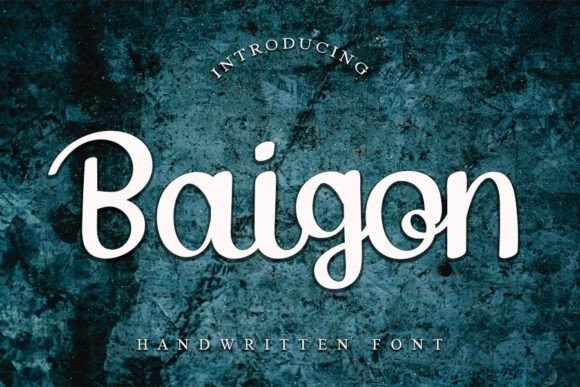
Baigon Font: Elevate Your Creative Projects with a Friendly Handwritten Style
In the world of typography, fonts play a crucial role in conveying the tone and personality of a brand or creative project. Among the numerous fonts available, Baigon Font stands out as a friendly handwritten font that has been carefully designed to become a true favorite. With its classy calligraphic influences and contemporary feel, Baigon Font is an excellent choice for those looking to add a touch of elegance and freshness to their projects.
What is Baigon Font?
Baigon Font is a beautifully crafted handwritten font that exudes warmth and friendliness. Its unique blend of traditional calligraphy and modern sensibilities makes it an ideal choice for a wide range of creative projects, from branding and advertising to packaging and digital media.
The font’s design is characterized by its flowing lines, gentle curves, and subtle imperfections, which give it a human touch that is hard to resist. Whether you’re looking to create a sophisticated logo, a charming invitation, or a engaging social media post, Baigon Font is sure to impress.
Key Features of Baigon Font
- Classy Calligraphic Influences: Baigon Font boasts elegant calligraphic elements that add a touch of sophistication to any project.
- Contemporary and Fresh: Despite its classic roots, Baigon Font feels modern and fresh, making it perfect for projects that require a unique and current aesthetic.
- Handwritten Style: The font’s handwritten style gives it a personal and approachable feel that is ideal for building connections with audiences.
- Versatile: Baigon Font is highly versatile and can be used for a wide range of projects, from digital media to print materials.
10 Creative Ways to Use Baigon Font
Baigon Font is an incredibly versatile font that can be used in a multitude of creative projects. Here are 10 ideas to get you started:
- Branding and Logo Design: Use Baigon Font to create a memorable logo that reflects your brand’s personality and values.
- Wedding Invitations: Add a touch of elegance and romance to your wedding invitations with Baigon Font.
- Social Media Graphics: Create engaging social media graphics that showcase your brand’s personality and style.
- Packaging Design: Use Baigon Font to create eye-catching packaging that stands out on store shelves.
- Advertising: Add a touch of sophistication and elegance to your advertising campaigns with Baigon Font.
- Digital Media: Use Baigon Font to create engaging digital media, such as e-books, blogs, and websites.
- Stationery: Create beautiful stationery, such as business cards, letterheads, and envelopes, with Baigon Font.
- Posters and Flyers: Use Baigon Font to create eye-catching posters and flyers that grab attention.
- Infographics: Add a touch of elegance and sophistication to your infographics with Baigon Font.
- Signage: Use Baigon Font to create beautiful signage that reflects your brand’s personality and style.
Tips and Tricks for Using Baigon Font
To get the most out of Baigon Font, here are some tips and tricks to keep in mind:
- Pair it with Other Fonts: Experiment with pairing Baigon Font with other fonts to create a unique and visually appealing typography.
- Adjust the Size and Color: Don’t be afraid to experiment with different sizes and colors to find the perfect combination for your project.
- Use it for Headings and Titles: Baigon Font is perfect for headings and titles, so don’t be afraid to use it to add a touch of elegance and sophistication to your project.
- Keep it Simple: Don’t overcomplicate your design – keep it simple and let Baigon Font do the talking.